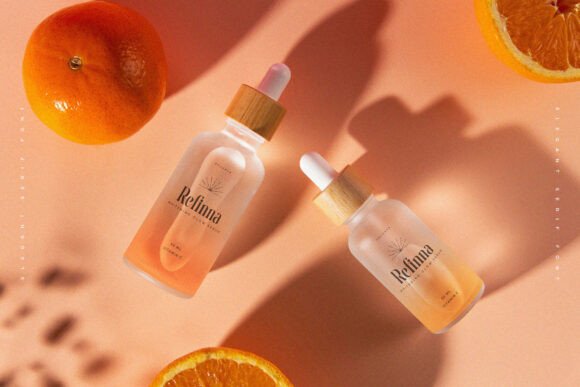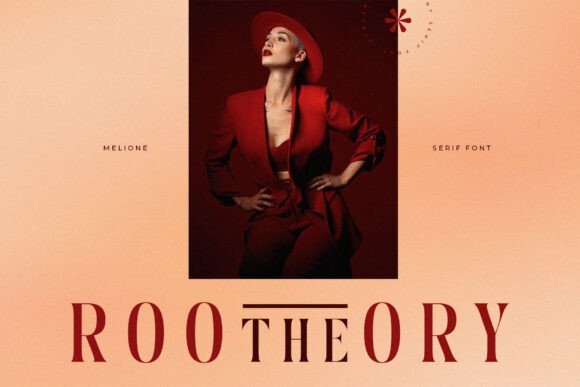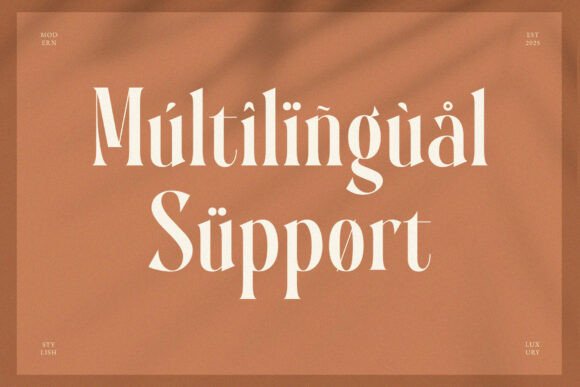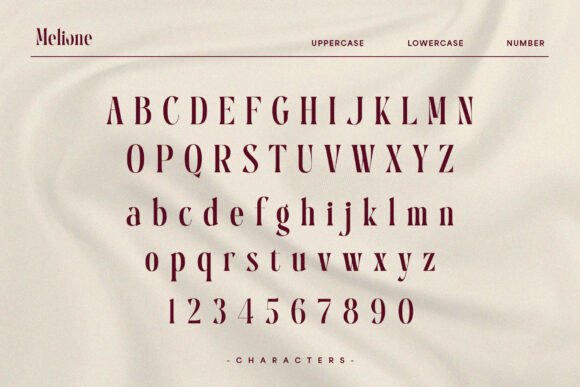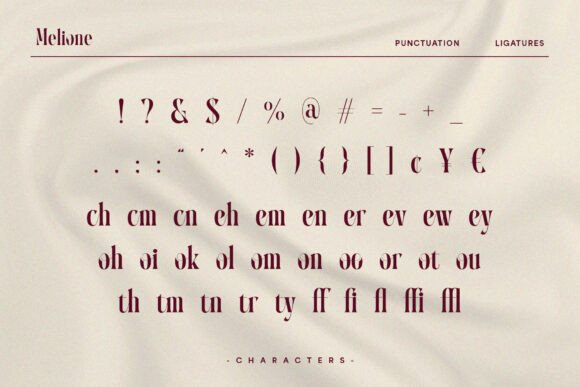
Introduction to Melione Font
Melione – Elegant Modern Display Serif Font with Stylish Ligatures for Luxury Branding Melione is an elegant modern display serif font that exudes refinement and confidence through its high-contrast structure and strikingly stylized letterforms.
Designed for luxurious branding and editorial finesse, its tall vertical proportions and razor-sharp serifs are balanced by gentle curves and playful, sculptural alternates—most notably the looped lowercase “o” and the uniquely expressive “e” and “n” , which infuse the font with graceful personality The uppercase set is clean and assertive, ideal for commanding headlines and logo marks, while the lowercase set adds fluidity and sophistication to body or accent text.
Key Features of Melione Font